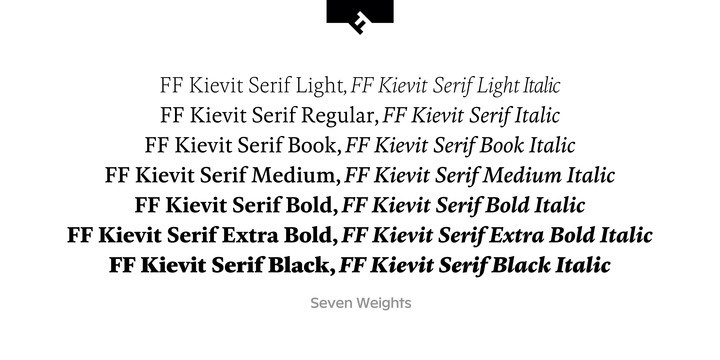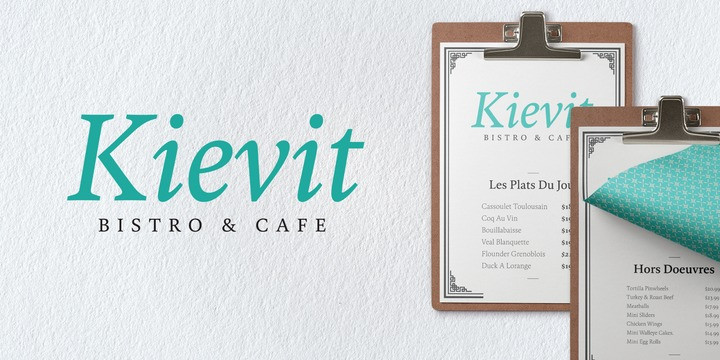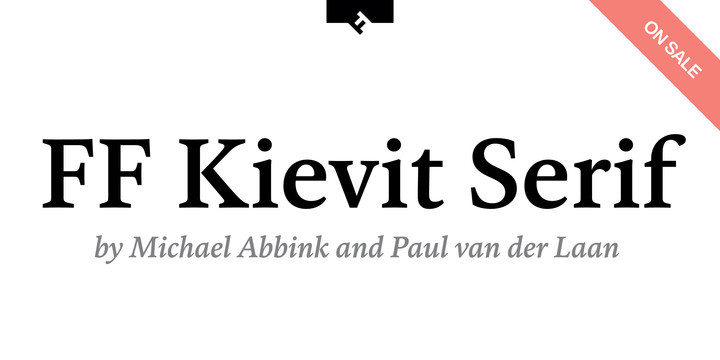
FF Kievit Serif Font Family
FF Kievit Serif subtlety melds oldstyle design traits and a 21st century mien into a clean, straightforward suite of typefaces. As part of the FF Kievit super family it helps brands carry their voices effectively and legibly. This includes small text to display sizes, in both print and digital environments, for internal and external audiences. FF Kievit takes inspiration from classic designs like Garamond and Granjon, and is available in seven weights, plus italics.